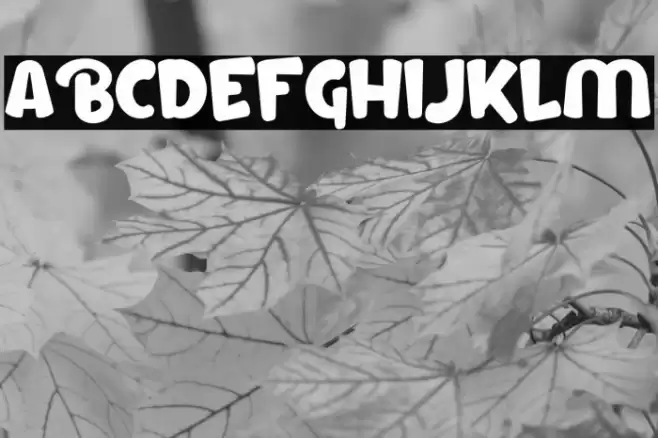
Chucky buck Font
Chucky buck Description
This playful and bold font features a rounded, bubbly design that exudes a sense of fun and whimsy. The characters are thick and have a uniform stroke width, giving them a solid and substantial appearance. The rounded edges and slightly irregular shapes contribute to a casual, friendly vibe, making it ideal for projects that aim to convey a lighthearted or informal tone. The font maintains consistent spacing between characters, ensuring readability while adding to its approachable style. Its unique and eye-catching design makes it suitable for a variety of creative applications.
A playful, bold font with rounded, bubbly characters and a casual, friendly vibe from Cartoon fonts.
- Proposed Projects: Perfect for children's books, playful branding, party invitations, and casual social media graphics.
- Overall Style: Playful, Casual